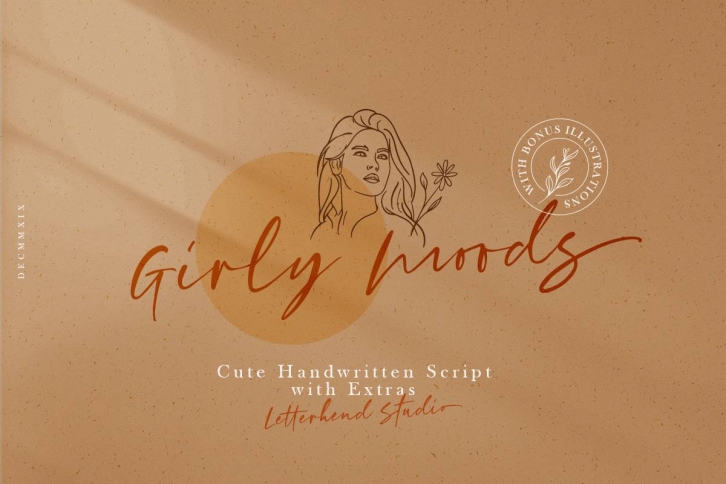
Girly Moods Script is a great font that was designed by Letterhend. Imagine the amount of combinations you can create using this font! The archive is 20.82 MB and it was released on December 31, 2019. Girly Moods Script looks beautiful on wedding invitations, greeting cards, logos, posters, labels, t-shirt designs, logos, business cards and is perfect for use in ink or watercolor works, fashion, magazines, packaging and food menus, children's books and more!